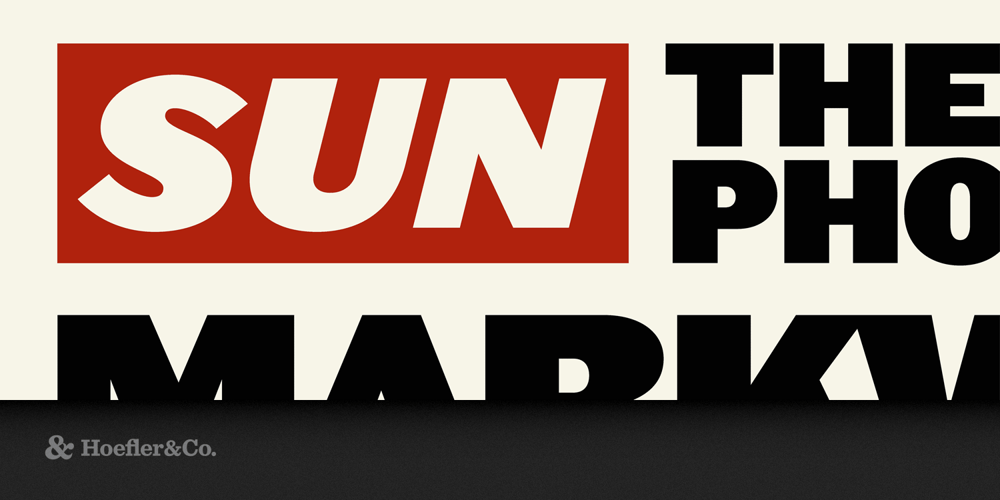
Leviathan Font Family was designed by Jonathan Hoefler and published by Hoefler & Co.. Leviathan contains 2 styles and family package options. Leviathan is the gothic (sans serif) member of The Proteus Project, a collection of four interchangeable type families designed in different nineteenth century styles. The Leviathan typeface was designed by Jonathan Hoefler in 1992. Leviathan is the sans serif member of The Proteus Project, a typographic theme-and-variations in different nineteenth century styles. Like the earliest sans serif poster types, Leviathan presents as a slab serif typeface denuded of ornamentation; unlike these early faces, it includes a companion italic, whose cursive motif adds a welcome brightness to the dark gothic style. Leviathan was created for Rolling Stone, in whose pages the typeface first appeared in 1993. From the desk of the designer: Leviathan began as a sans serif conversion of our Ziggurat typeface, a process which echoes the way in which many early gothics were developed. Like all typographic names that evoke the ancient world (Egyptian, Tuscan, Ionic, etc.) the term “gothic” is a nineteenth century English coinage that reminds us of that culture’s fascination with antiquity.